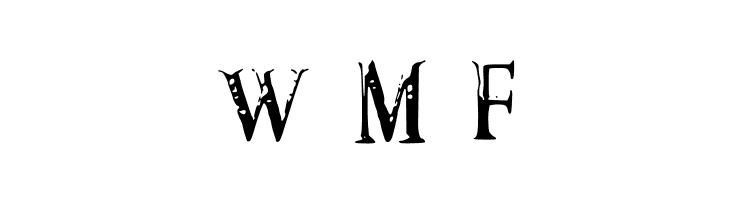
( Fonts by Gyom Seguin - last-soundtrack.daportfolio.com )
A distressed, vintage-style font with a bold, weathered appearance.
( Fonts by Bartek Nowak - www.nowak.tv/fontoholic/ )
A distressed, vintage typewriter-style font with a textured, aged appearance.
( Fonts by German Olaya - www.typo5.com )
A distressed, vintage typewriter-style font with a bold, worn-out appearance.
( Fonts by Koczman Balint - magiquefonts.gportal.hu )
A bold, distressed font with a vintage, industrial style.
( Fonts by Pi Luo Chiu - thisisallenchiu.tumblr.com )
A distressed serif font with a vintage, rustic appearance.
( Fonts by Sentinel Type - James Arboghast )
A playful, dotted outline font with bold, rounded characters.
( Fonts by Sentinel Type - James Arboghast )
A modern, inline font with geometric shapes and smooth curves.
( Fonts by www.fontscafe.com )
A vintage, distressed serif font with a textured, aged appearance.
( Fonts by Typography in Decay )
A distressed, grunge-style font with a textured, aged appearance.
A distressed serif font with a vintage, weathered appearance.
( www.hypefonts.com )
A distressed serif font with a vintage, weathered look.
( Fonts by Cannot Into Space Fonts )
A distressed serif font with a fragmented, aged appearance.
A bold, distressed font with a vintage, handcrafted appearance.
A distressed, vintage serif font with a textured, aged appearance.
A distressed, vintage typewriter-style font with a textured, ink-like appearance.
A distressed, grunge-style font with a textured, aged appearance.
( DarkX ShadowX21 )
A rugged, medieval-inspired font with a distressed, aged appearance.
( K-Type - Keith Bates - www.k-type.com/ )
A distressed, vintage-style font with a rubber stamp appearance.
( LeChefRene - members.aol.com/lcrfonts/ )
A decorative font featuring awareness ribbons integrated into each character.
A vintage serif font with a classic, aged appearance.
A rugged, vintage typewriter-style font with a distressed, aged appearance.
( Fonts by PutraCetol Studio )
A bold, bandaged decorative font with a spooky, Halloween vibe.
A bold, distressed font with a weathered, rustic appearance.
( Fonts by Mr Fisk - Mike Larsson - fontorama.net )
A vintage, typewriter-style font with a distressed, rugged texture.